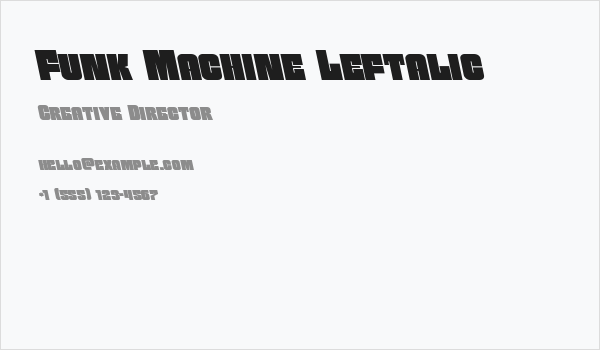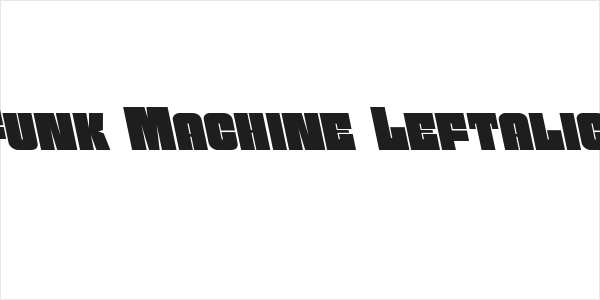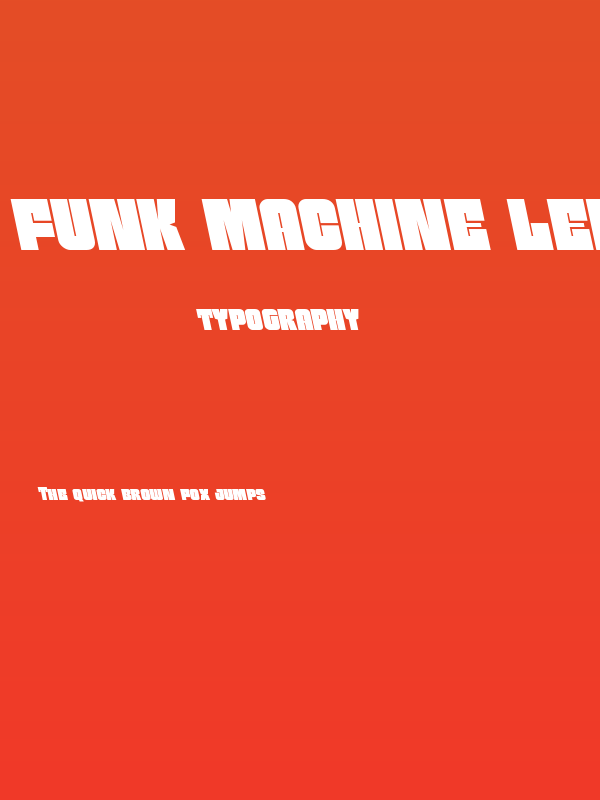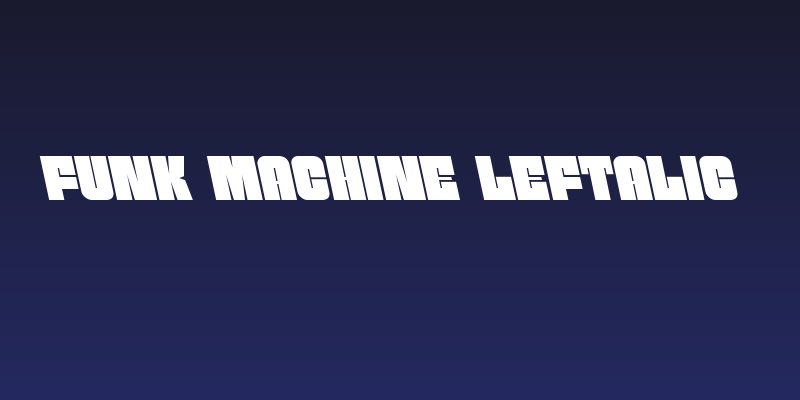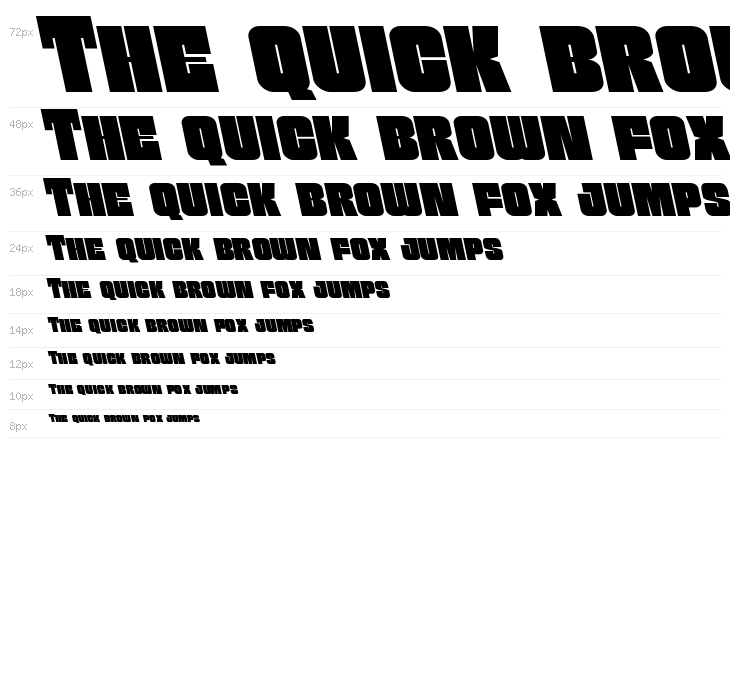
Funk Machine Leftalic Font
Funk Machine Leftalic Description
This font features a bold and dynamic design with a distinct slant to the left, giving it a sense of movement and energy. The characters are wide and blocky, with a strong presence that commands attention. The strokes are thick and consistent, providing a high level of contrast that enhances readability despite the bold style. The overall appearance is modern and edgy, making it suitable for projects that require a strong visual impact. The spacing between characters is tight, contributing to the compact and cohesive look of the text.
Proposed ProjectsIdeal for posters, headlines, branding, and any design that needs a bold statement.